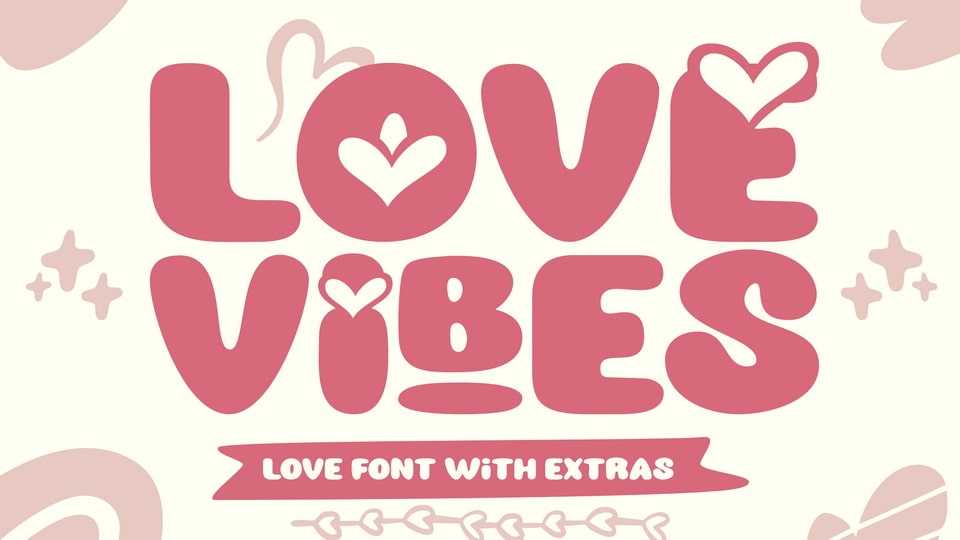
Download Love Vibes font, a bold Valentine’s decorative typeface with cute letters. Add it to your Valentine’s crafts, love movie posters, t-shirts, and anything else that requires a spectacular look.